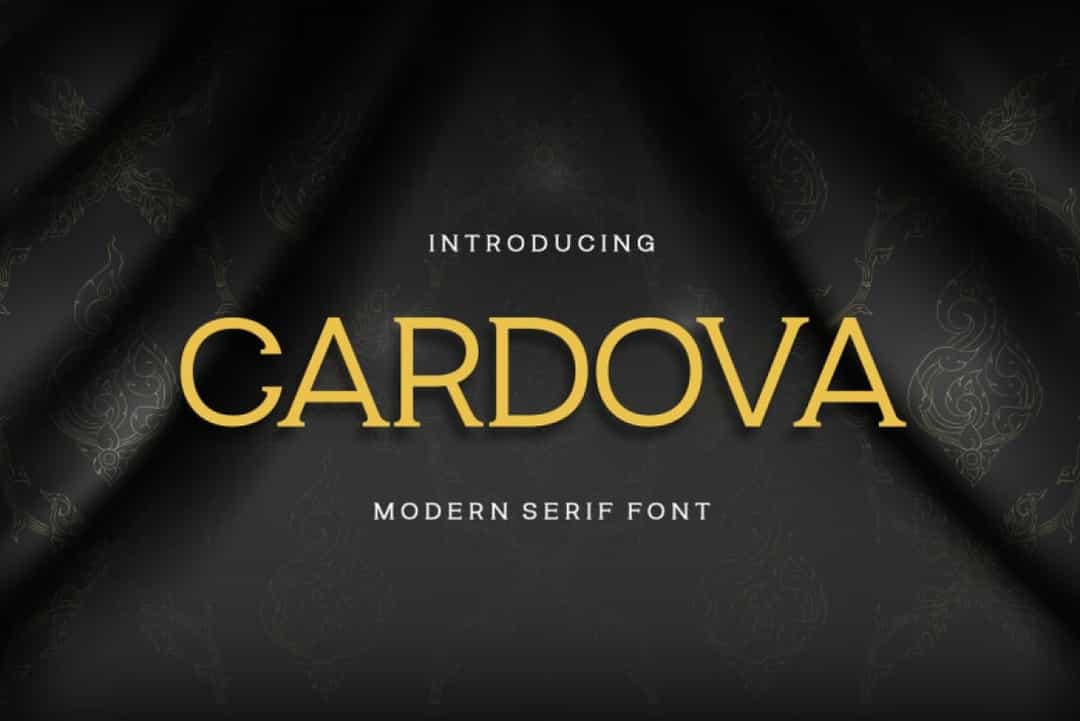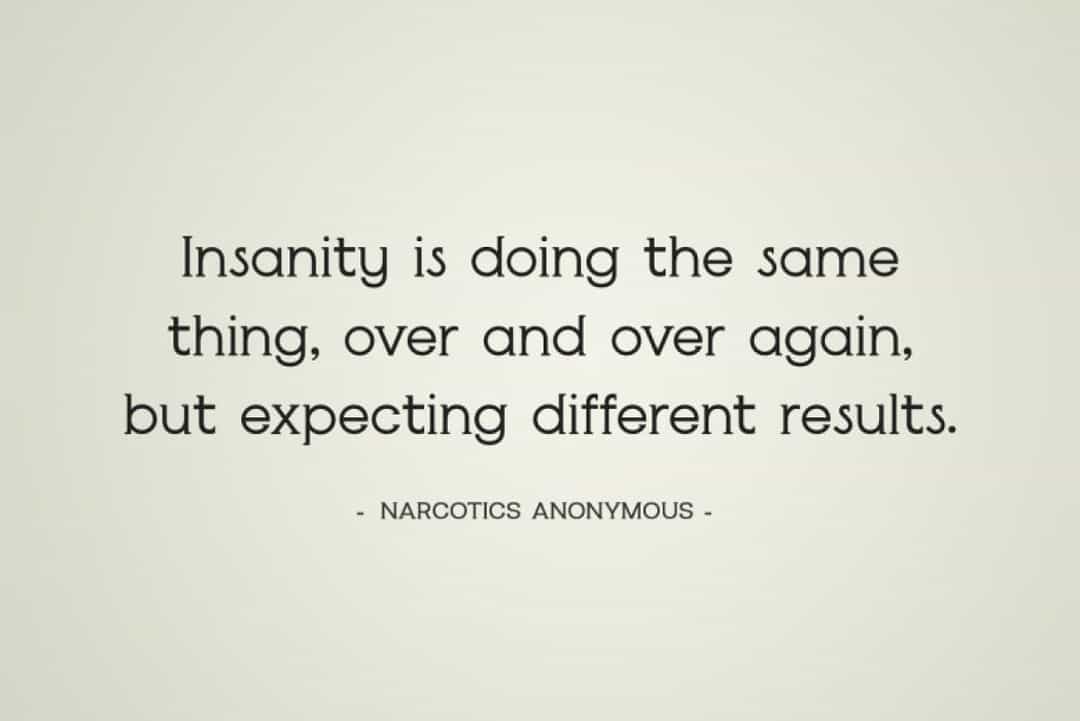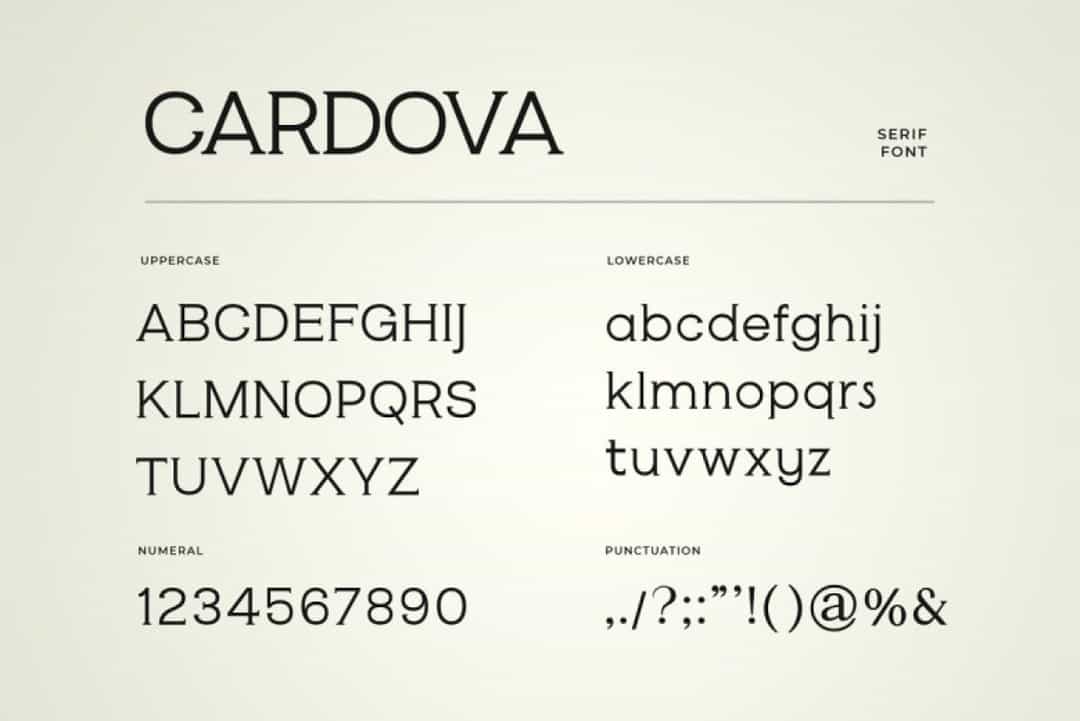
Cardova is an elegant serif font which blends classic design with minimalist elements. Producing elegant and beautiful fonts with ligatures and alternative characters for every character in each font family, Cardova makes discovering your personal style much simpler by including various styles suitable for logos, posters, covers, primary packaging materials such as CD cases or books, T-shirts for wedding invitations cards or business cards – so why are you waiting? Get Cardova today and discover it’s possibilities today.